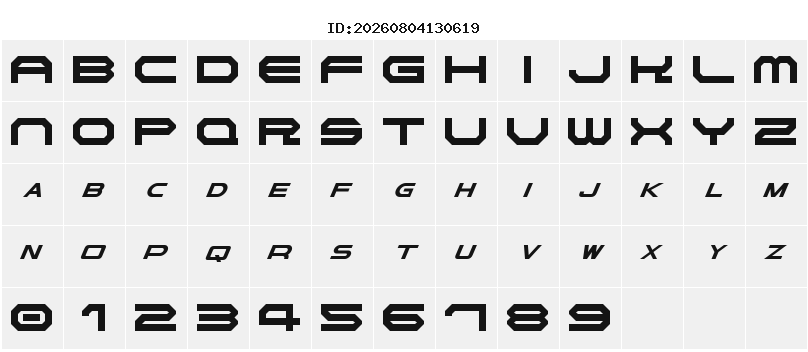
About NiseSegaSports2k3.ttf
NiseSegaSports2k3.ttf is a modern, elegant sans-serif font designed for ultimate readability and visual harmony. Perfect for branding, headlines, web design, and print materials.